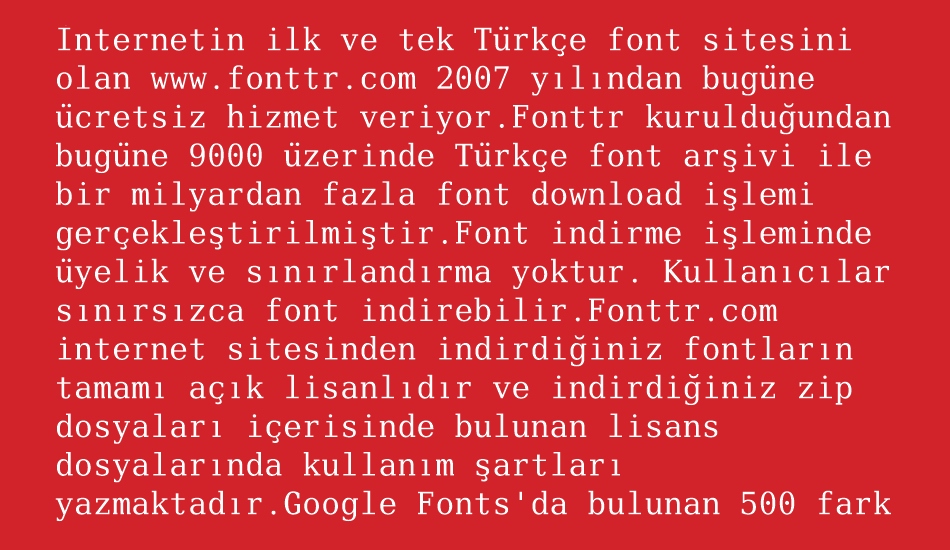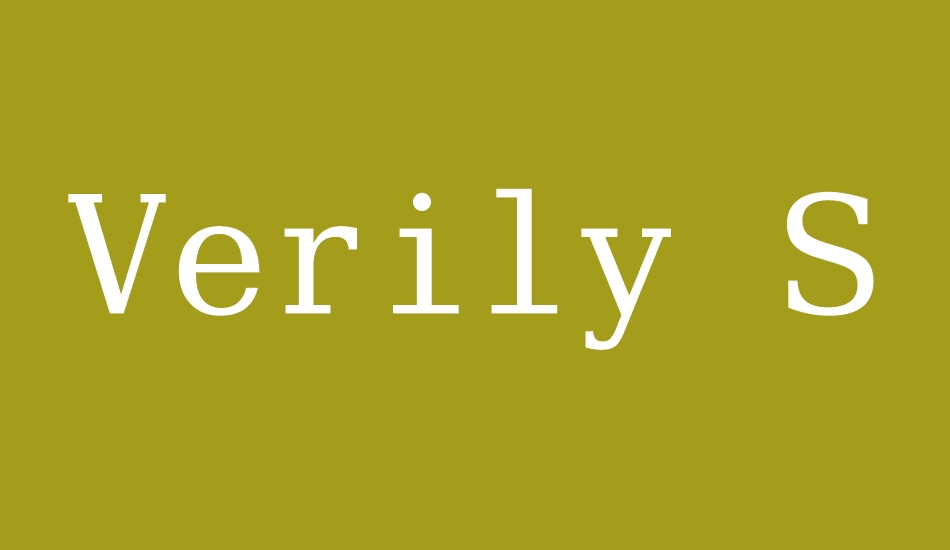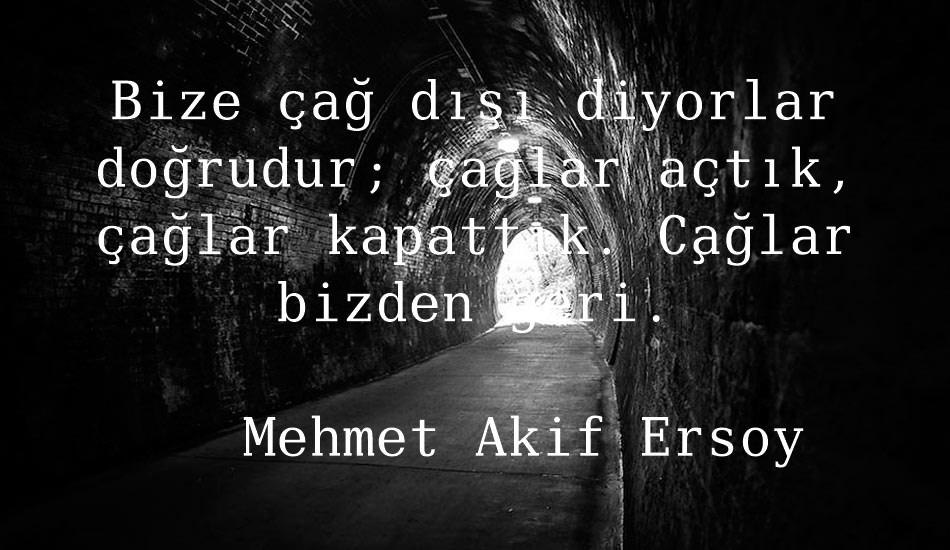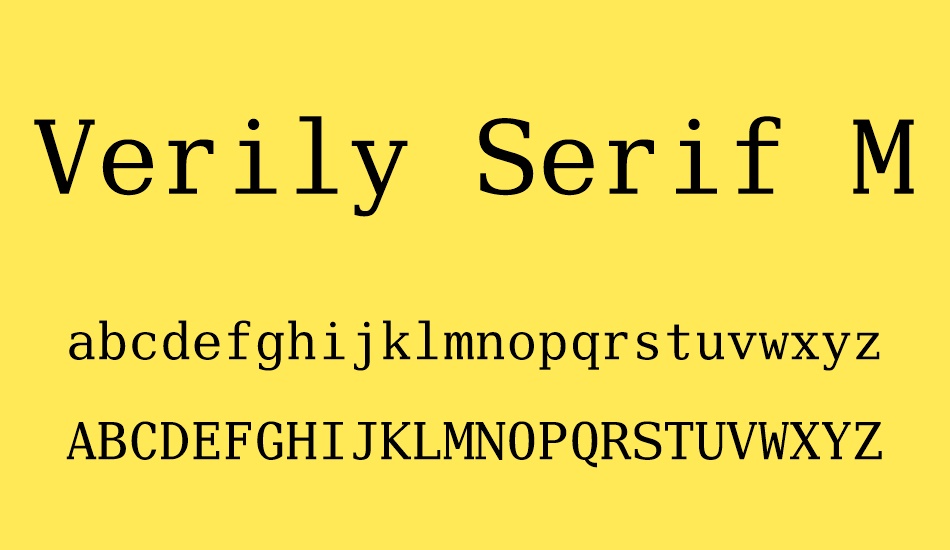
Verily Serif Mono font
Verily Serif Mono is derived from Bitstream Vera Serif with the same proportions as Bitstream Vera Sans Mono. Only the primary ASCII characters have been modified; I have no plans at the moment to modify the extended character set or to do a bold version.